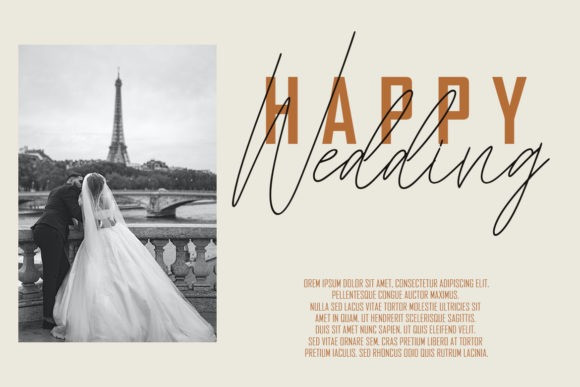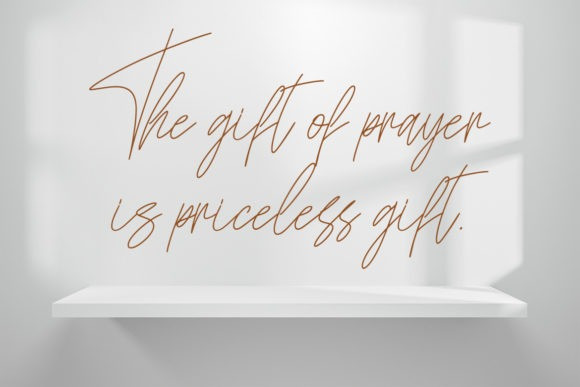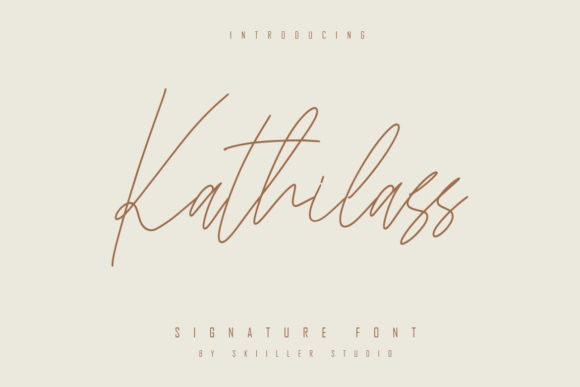
Kathilass Signature Font
Kathilass Signature Font is a thin lettered and graceful script font. Fall for its ravishing style and use it to create gorgeous wedding invitations, beautiful stationary art, eye-catching social media posts, and much more!